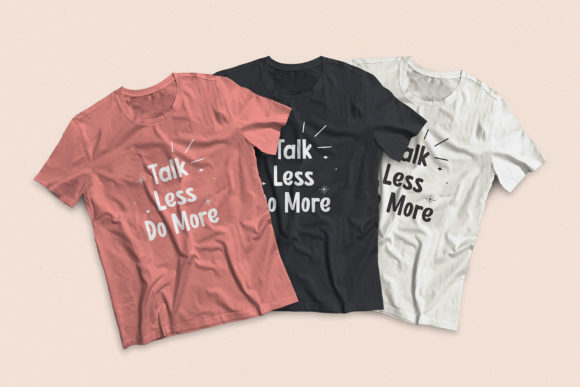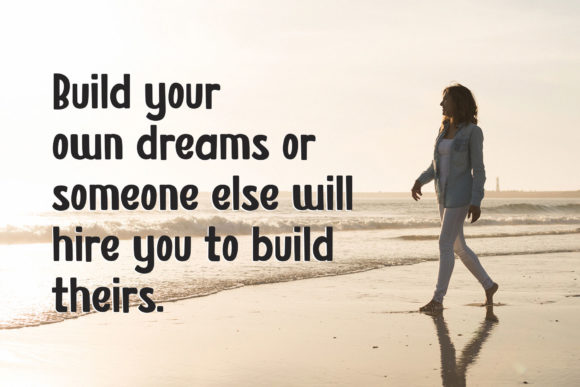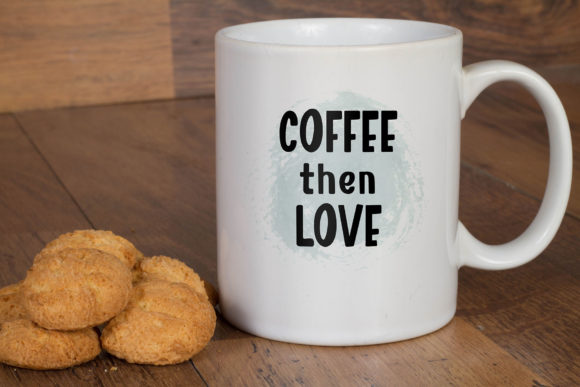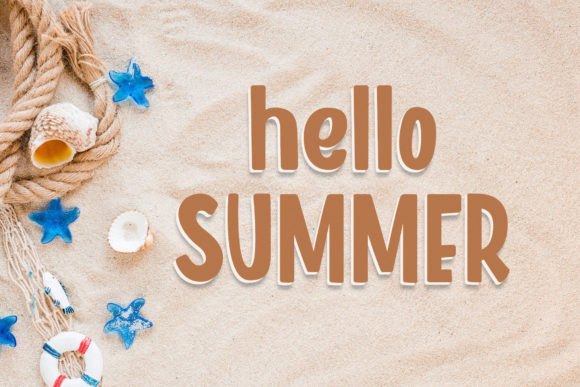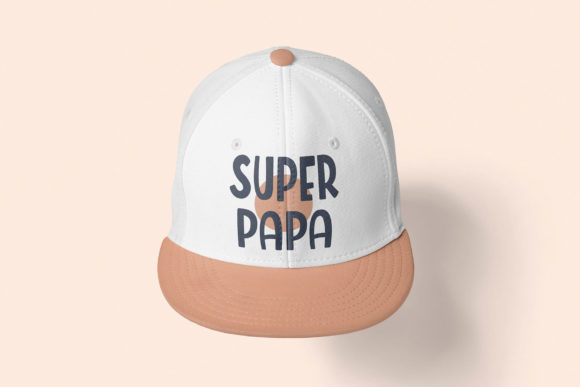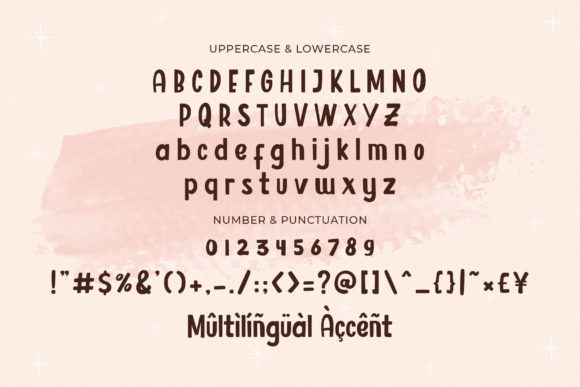
Introduction to Resultan Font Font
Fonts play a crucial role in design, and the Resultan Font font is a typeface that brings both character and versatility to any project. Whether you’re working on a branding project, a website, or a print design, the Resultan Font font offers a unique style that can elevate your work.
Resultan is a cute, funny and casual display font.
Clean and soft, this font is the perfect fit for all of your crafty DIY projects, logos, branding, social media, and so much more .
Key Features of Resultan Font Font
Why Choose Resultan Font Font?
The Resultan Font font is more than just a typeface – it’s a design tool that helps you communicate your message with style and clarity. Its unique character set and versatile design make it suitable for a wide range of applications, from elegant invitations to bold headlines.
With its carefully crafted letterforms and balanced proportions, the Resultan Font font ensures readability and visual appeal across all mediums.
What makes Resultan Font font special?
The Resultan Font font stands out with its unique design, exceptional readability, and versatility across various design applications.